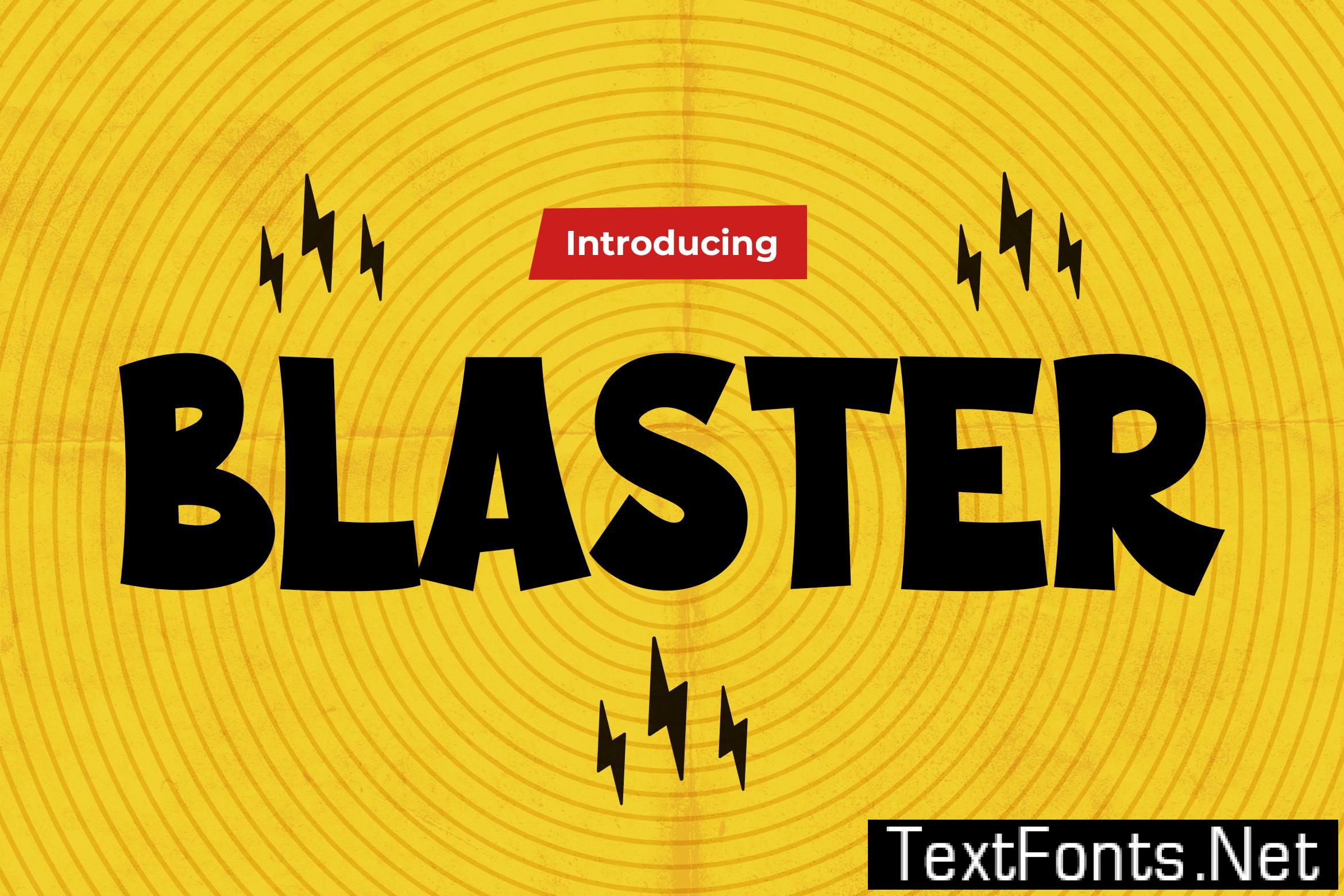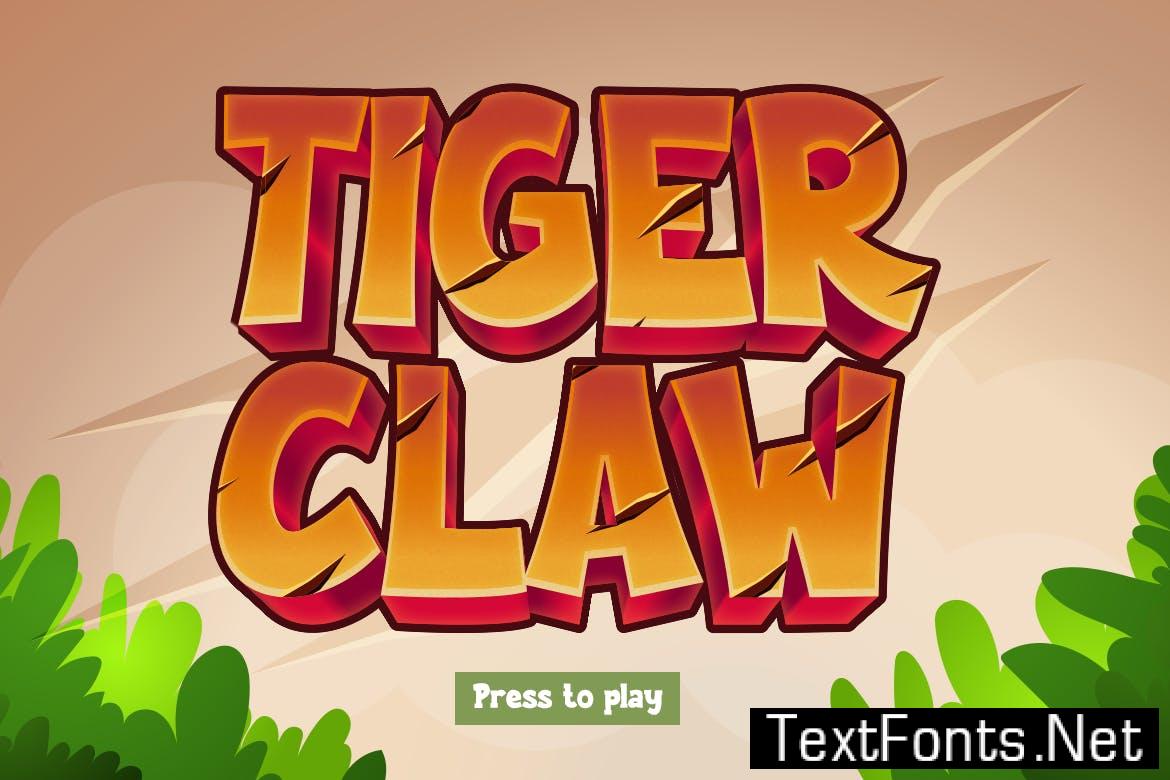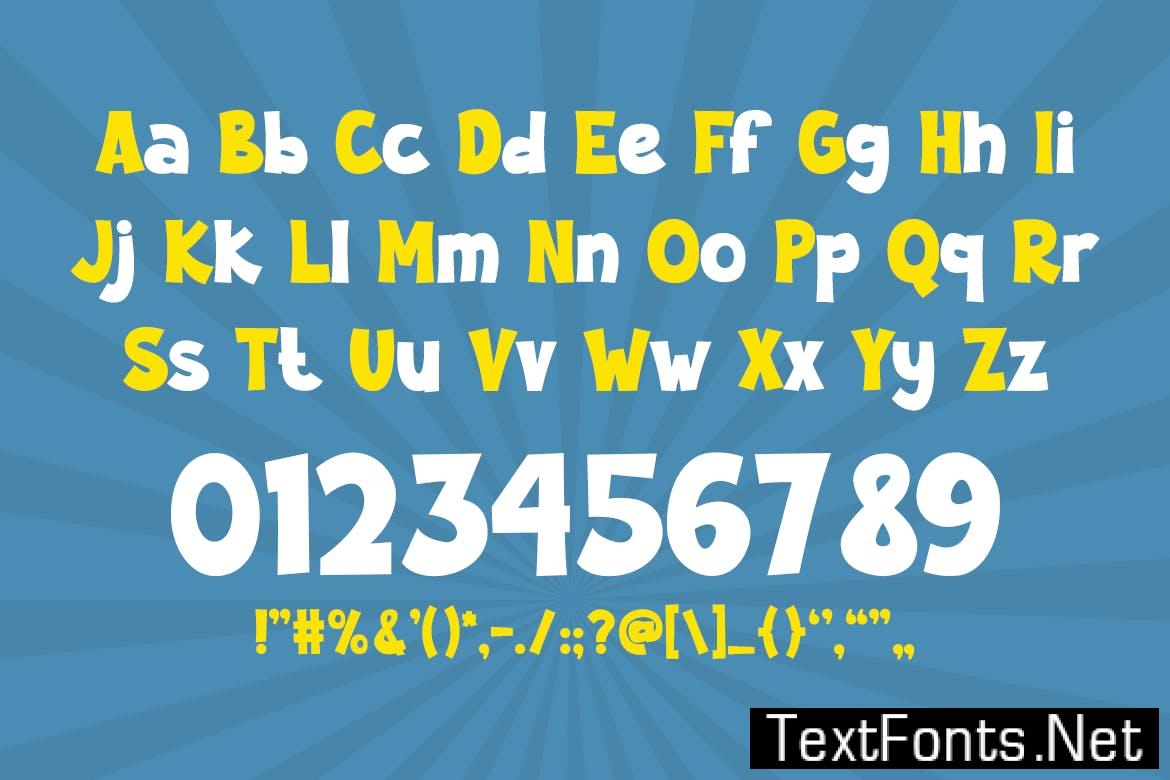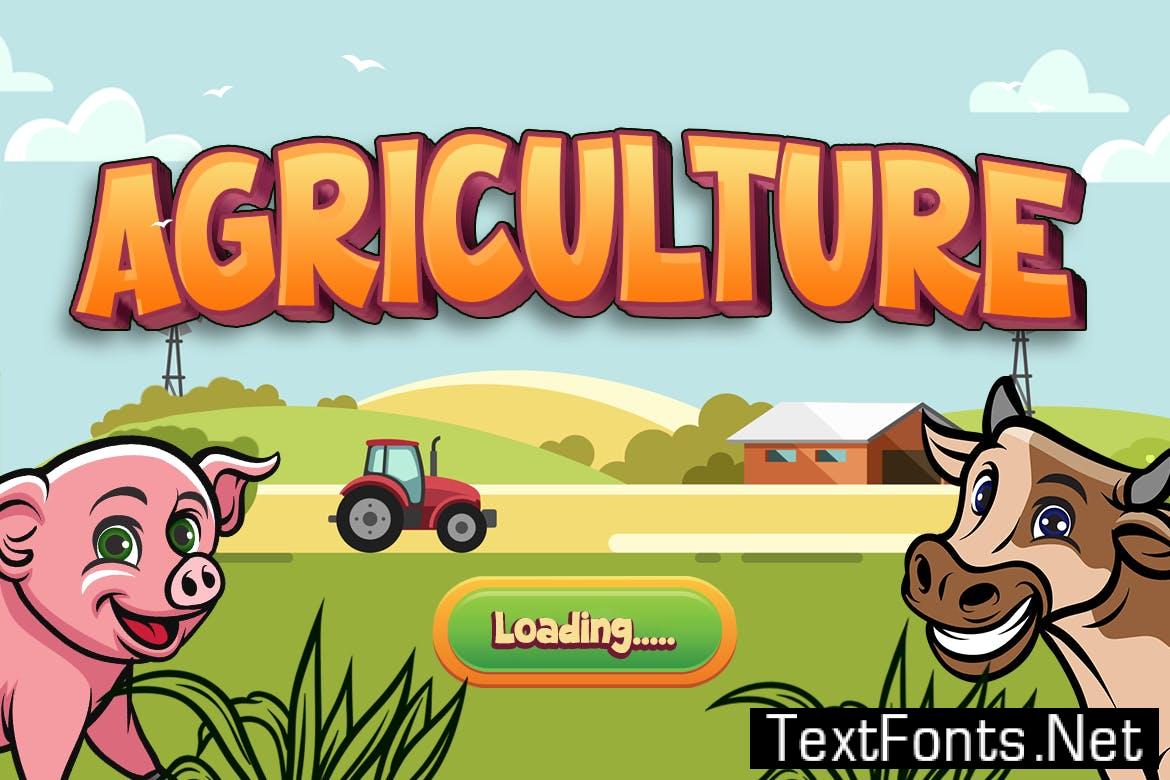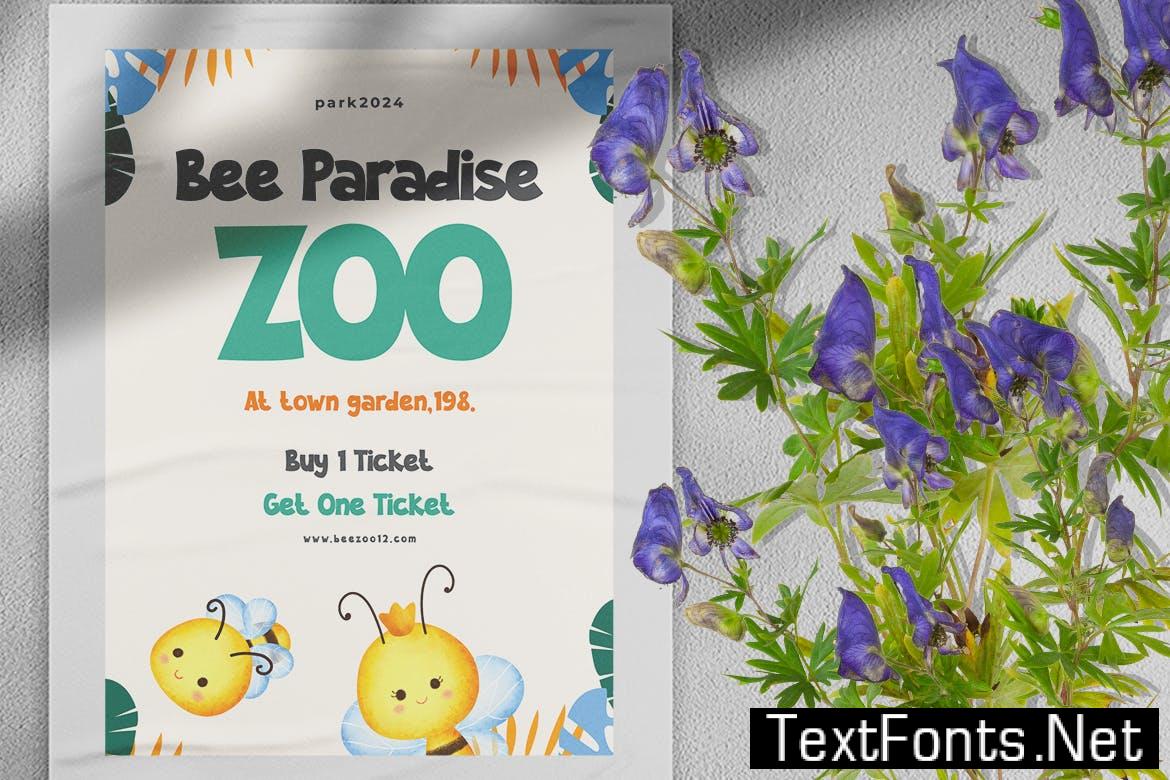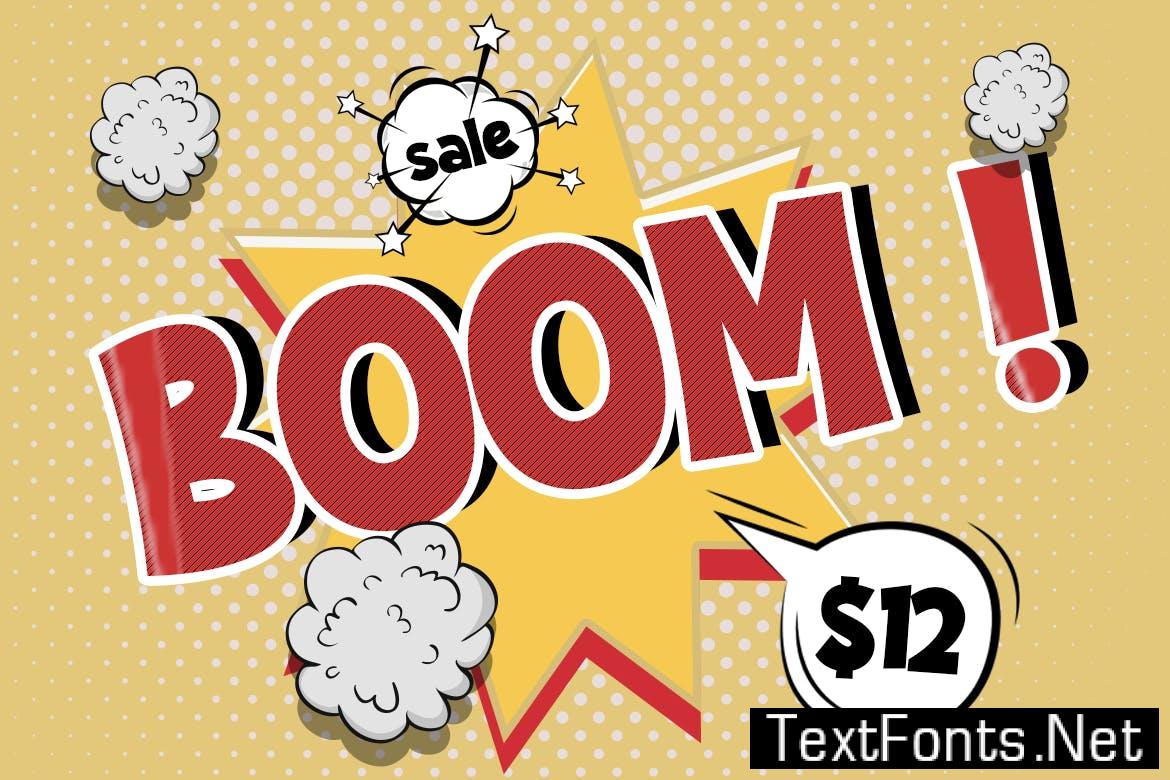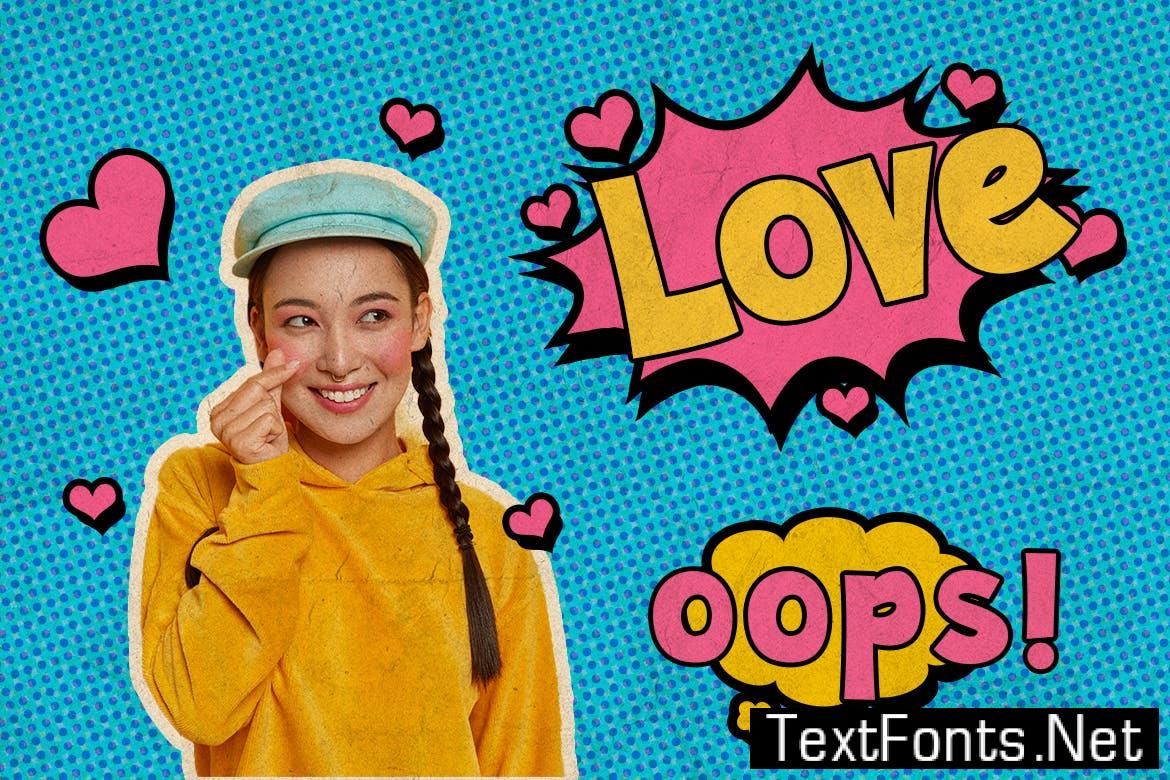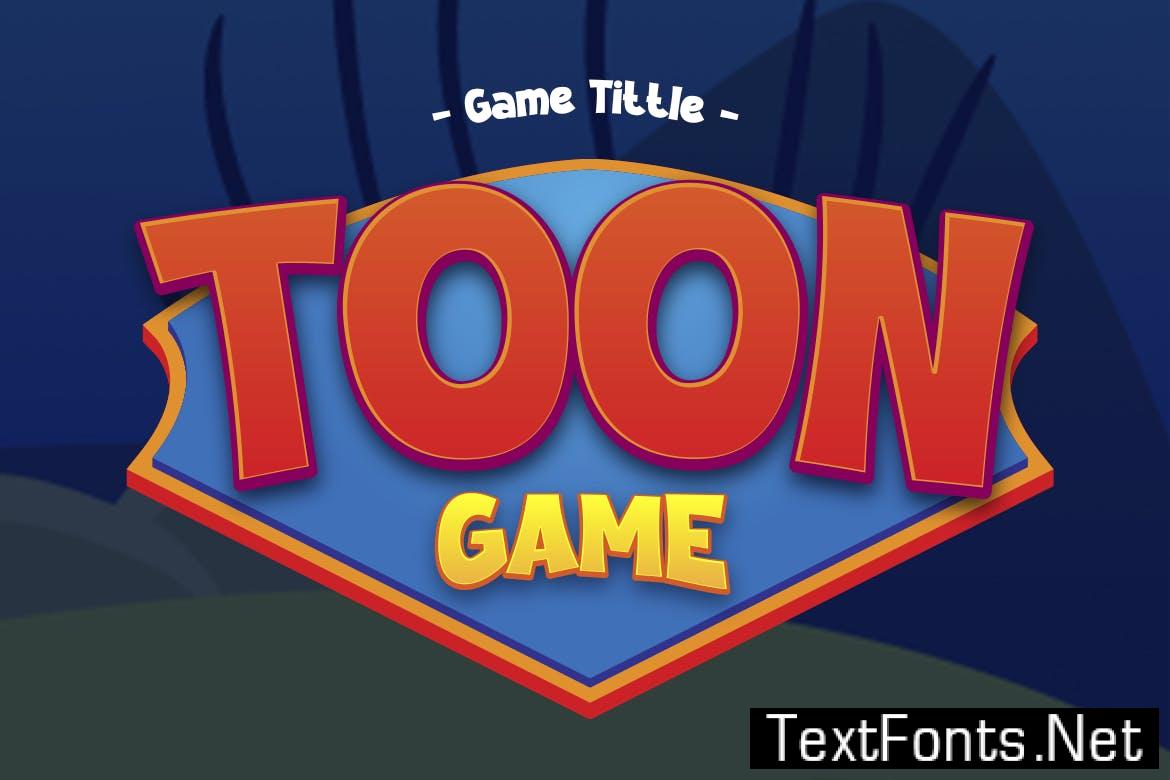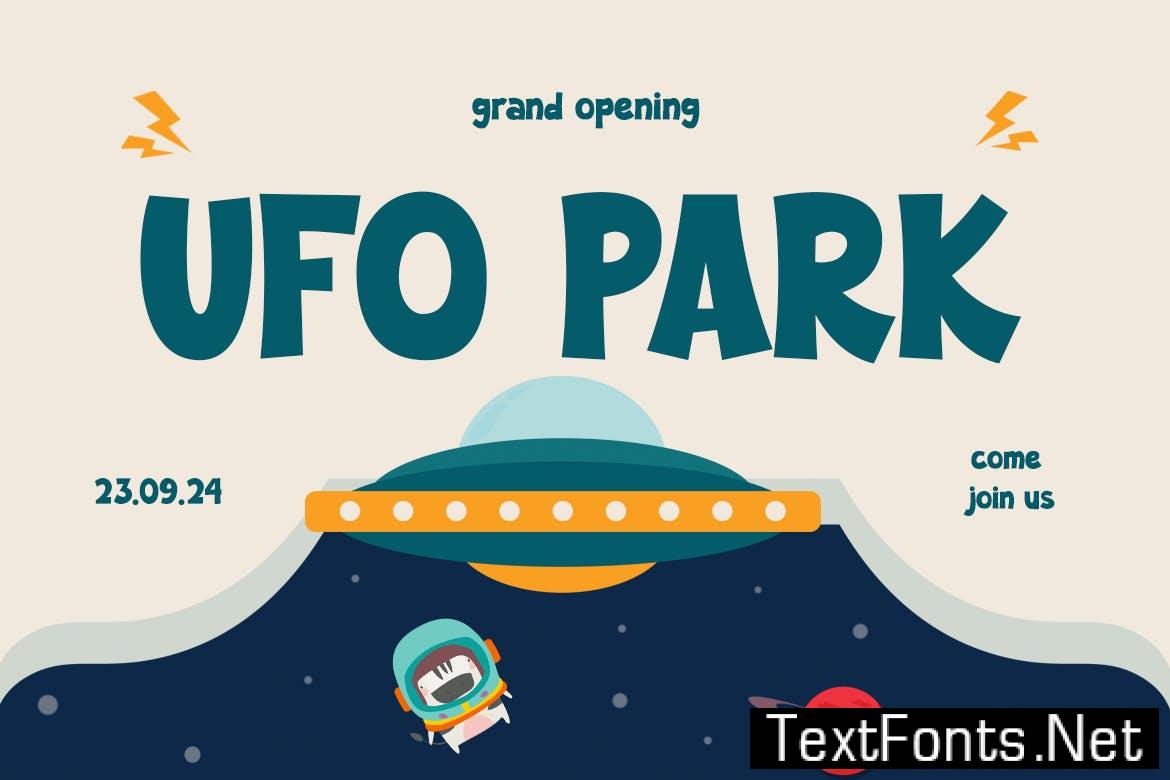
Blaster is a comic font that encapsulates the spirit of gaming and cartoon fun with a vibrant and energetic style. Designed to inject humor and liveliness into any project, this font is ideal for logos that aim to stand out with a playful yet bold presence. Blaster enhances quotes with its funny and engaging character, making each word leap off the page. Its appeal is perfect for creating invitations that promise excitement and posters and greetings that captivate and entertain. Blaster’s dynamic form also makes it a top choice for packaging and branding, where its fun and cartoonish style can truly shine. Whether used for book covers, event promotions, headlines, or advertising, Blaster ensures your messages are not just seen but remembered with a smile.